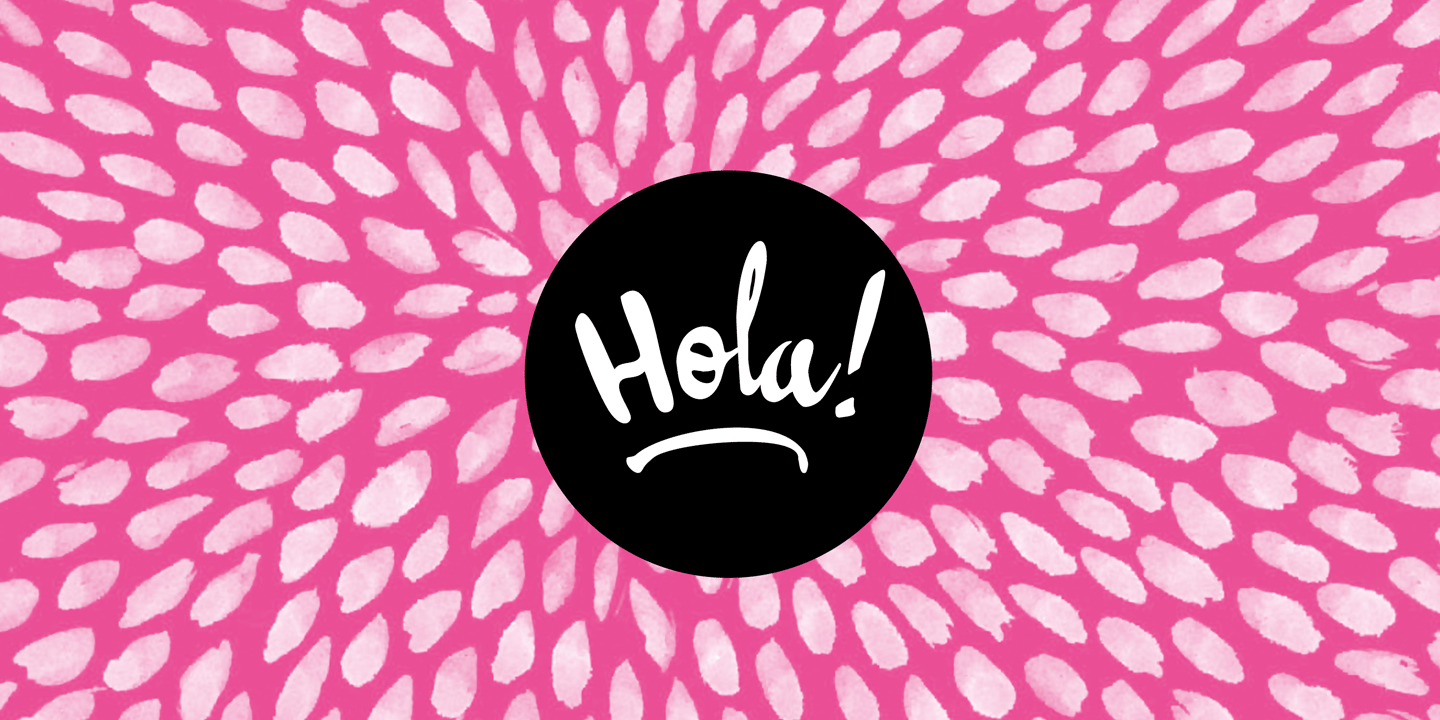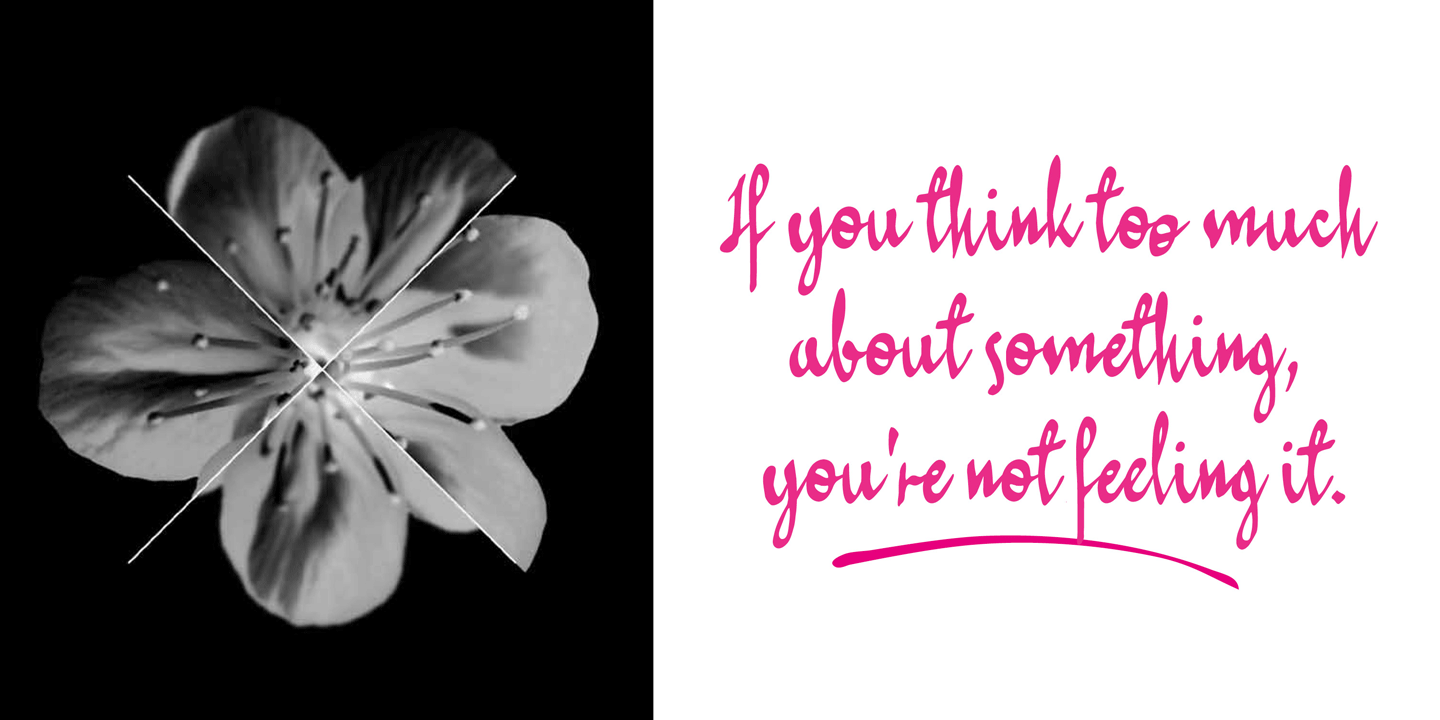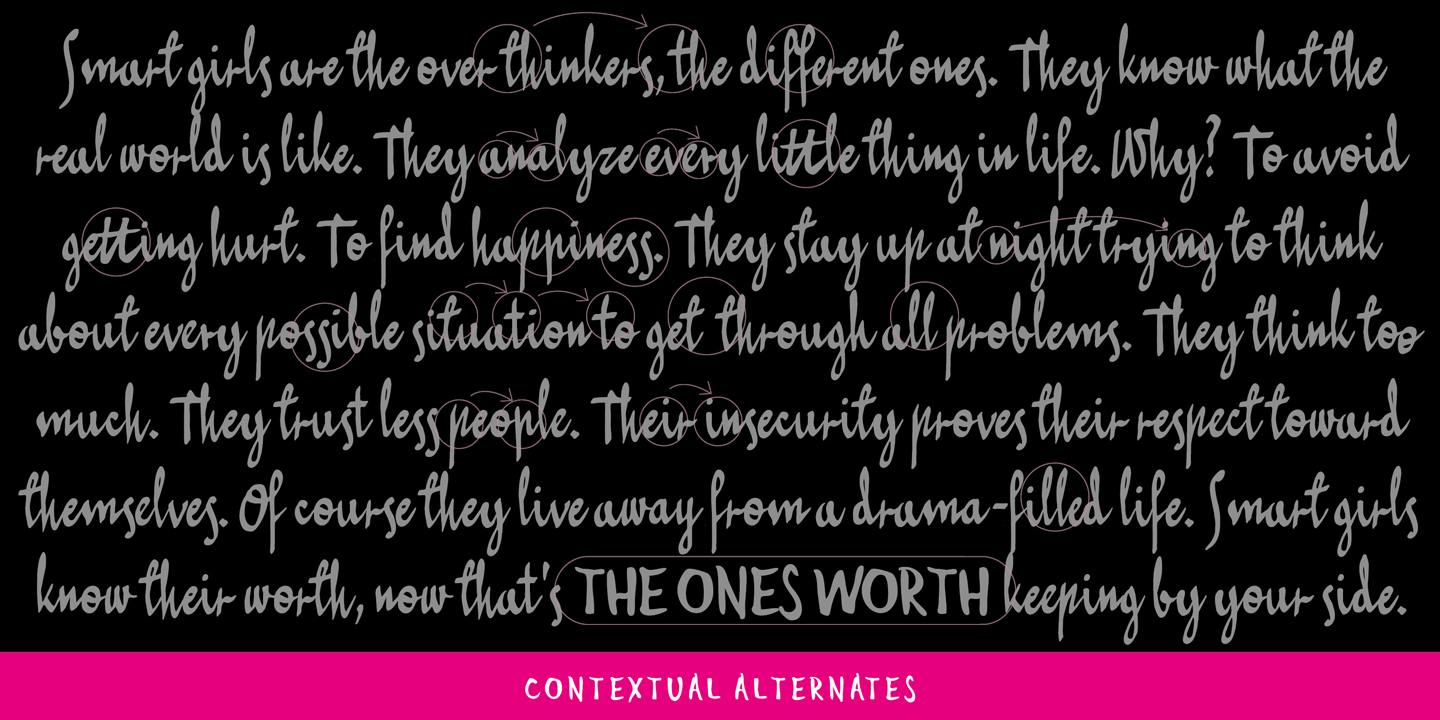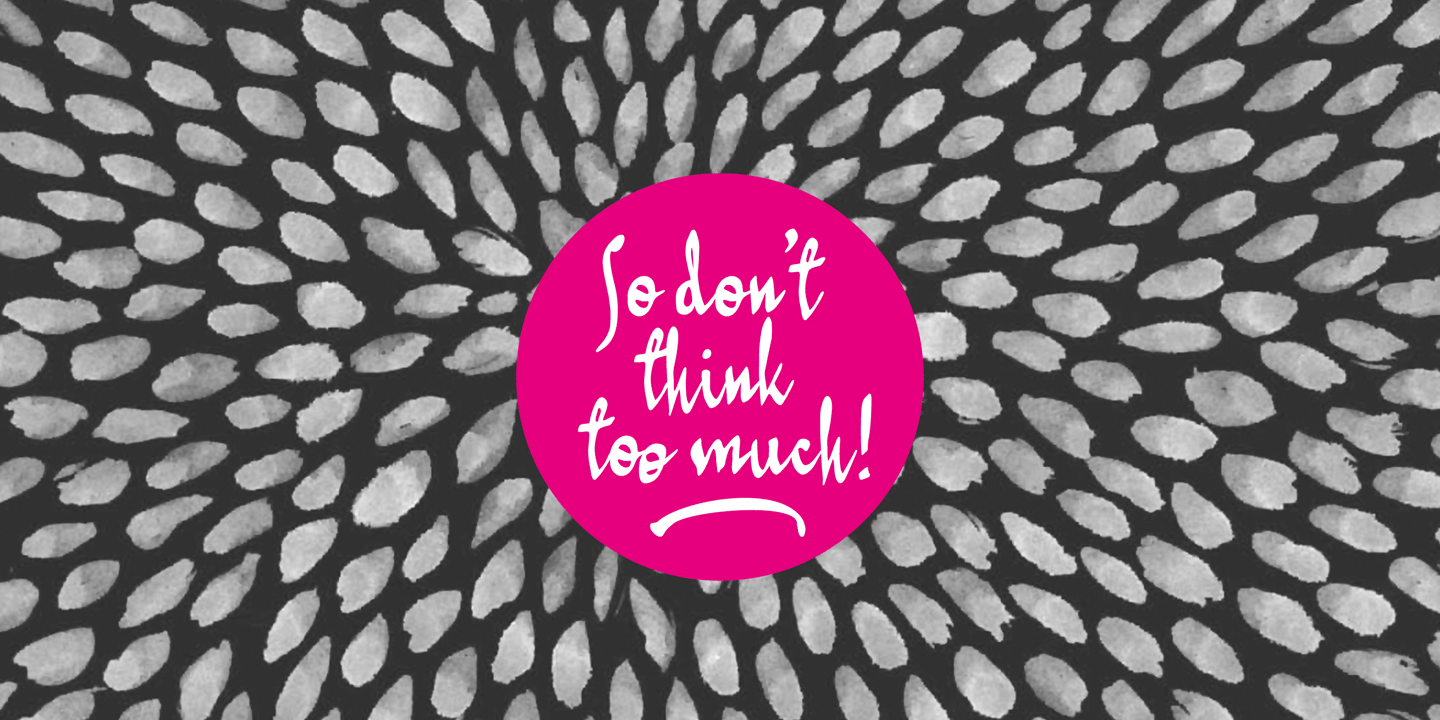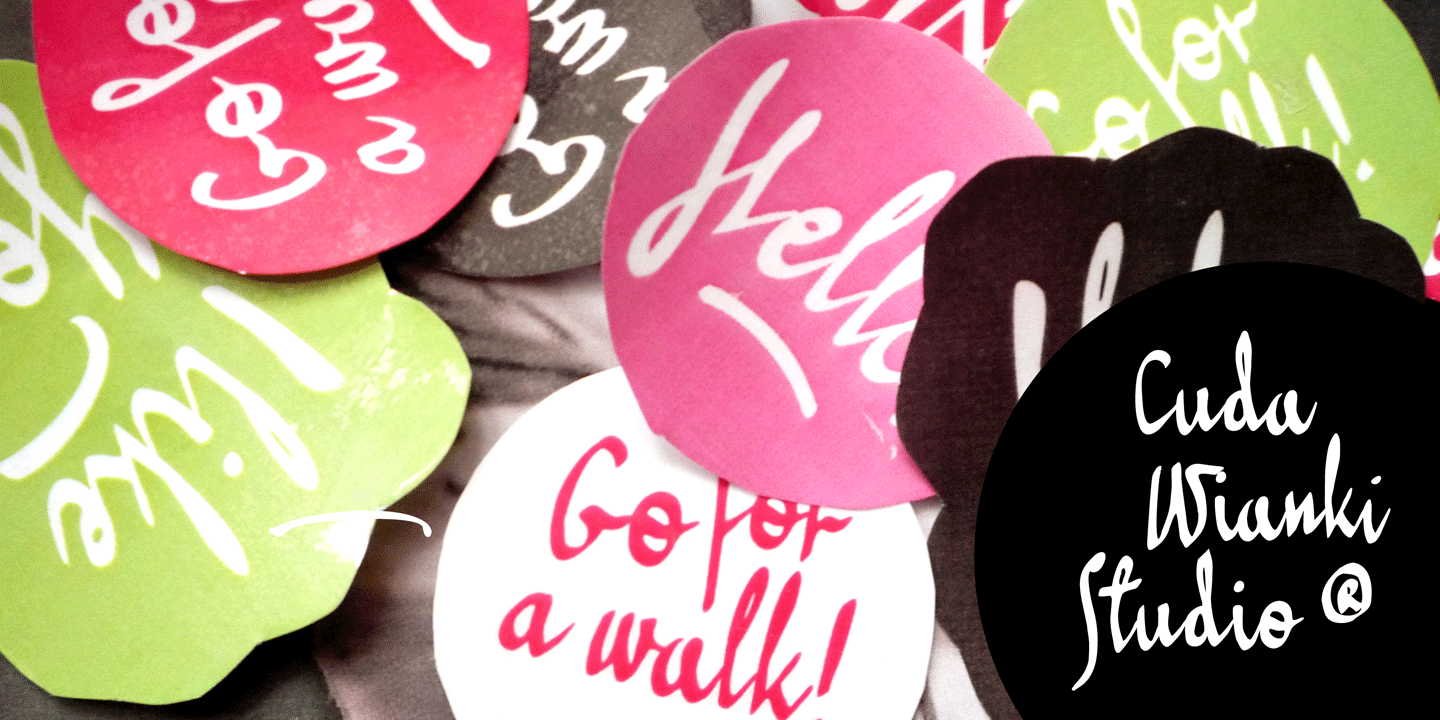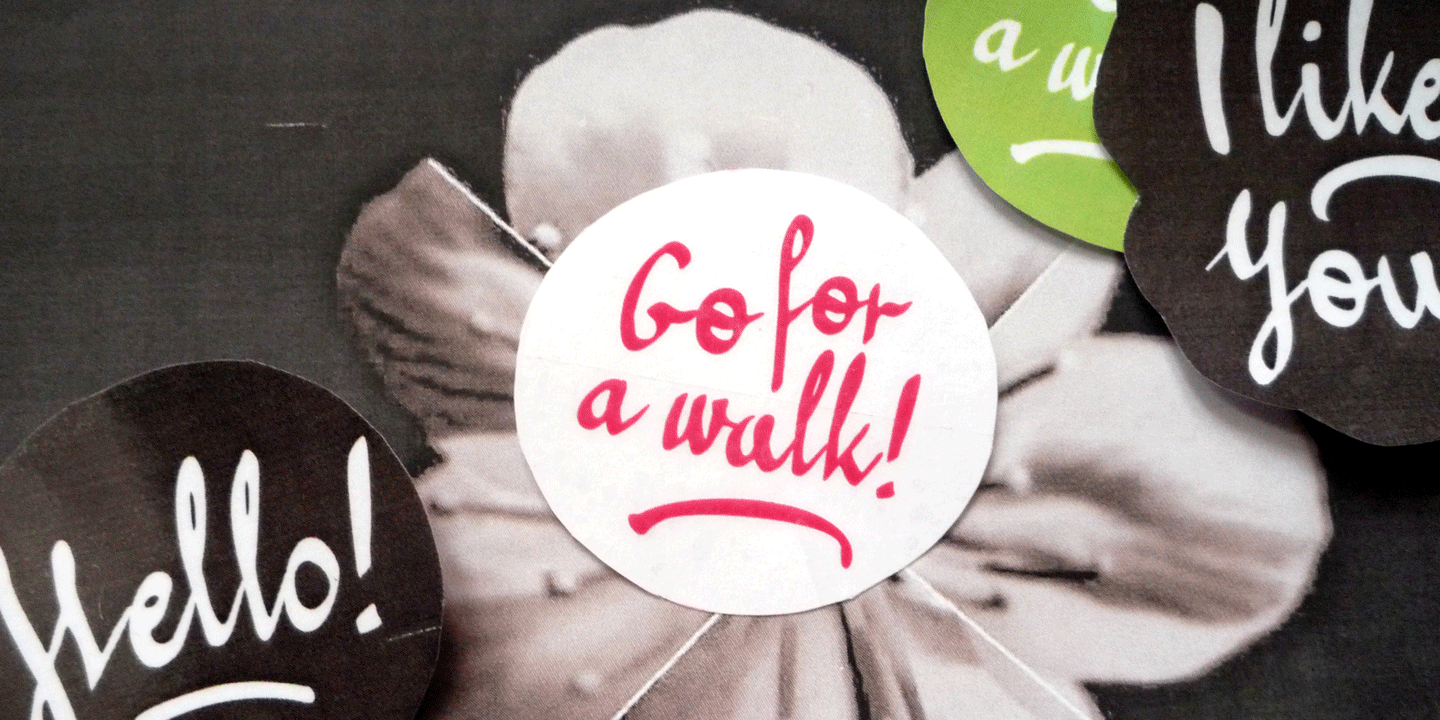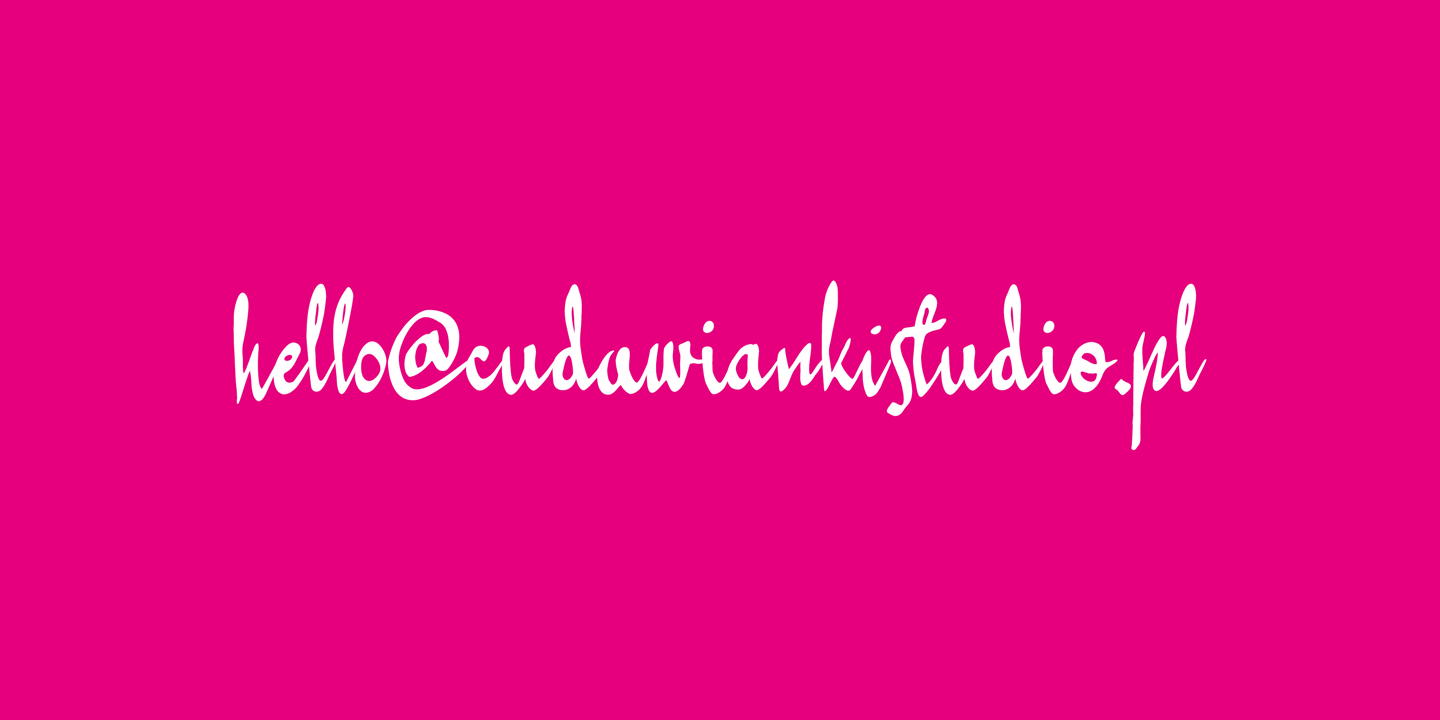
Hola! This is our new handwritten font. It's casual, young and pretty, perfect for logotypes, magazines, writing notes and comments. Thanks to many ligatures and alternate characters it is varied handwriting font. Enjoy!